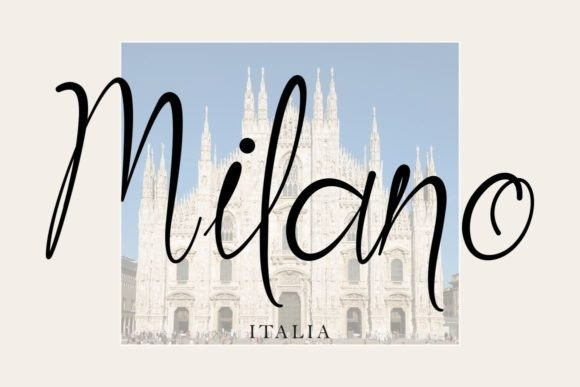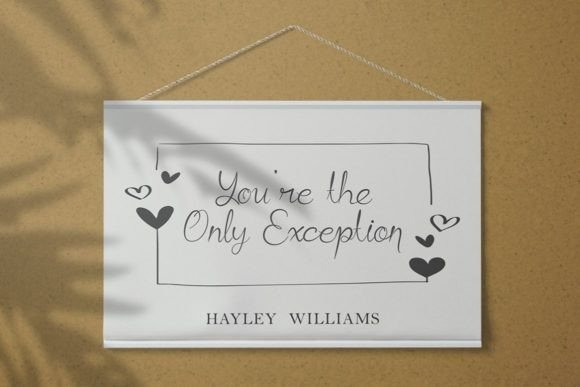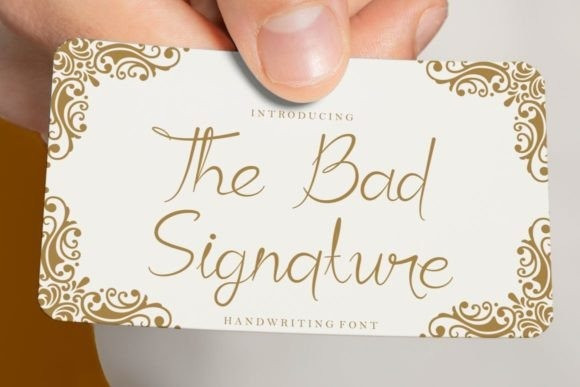
The Bad Signature Font
The Bad Signature Script Font is a dazzling script font. This font is neatly crafted and highly detailed. Whatever the topic, this font will be a wonderful asset to your font library, as it has the potential to enhance any creation.